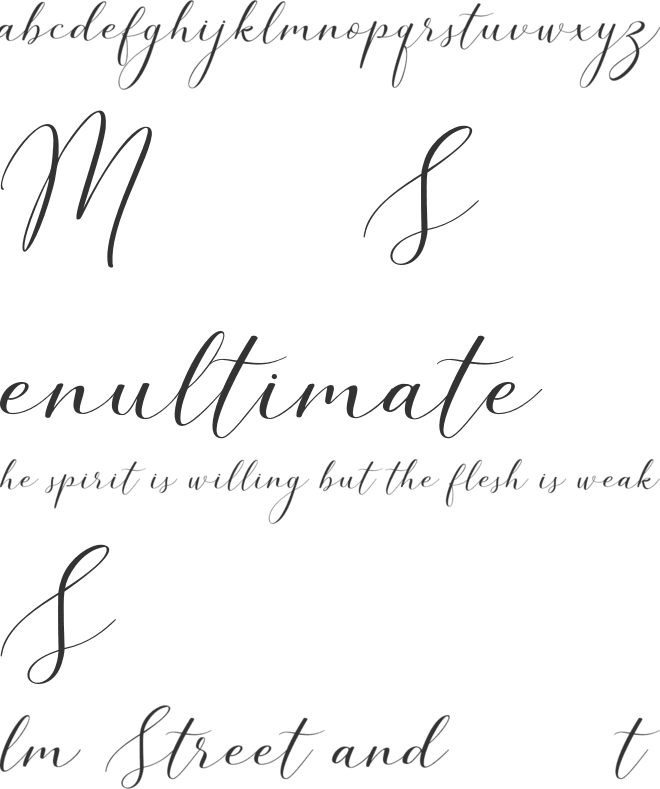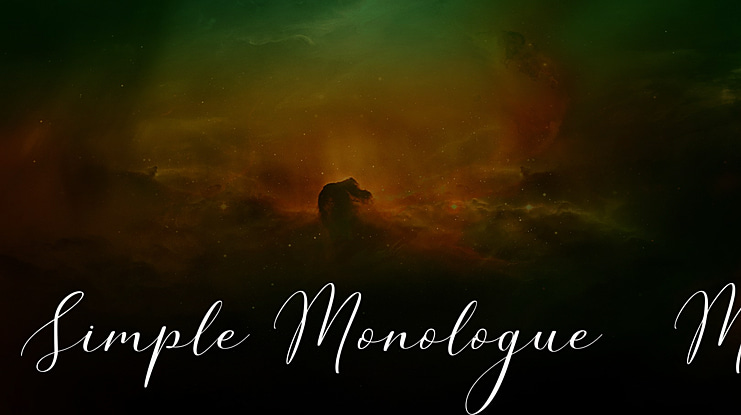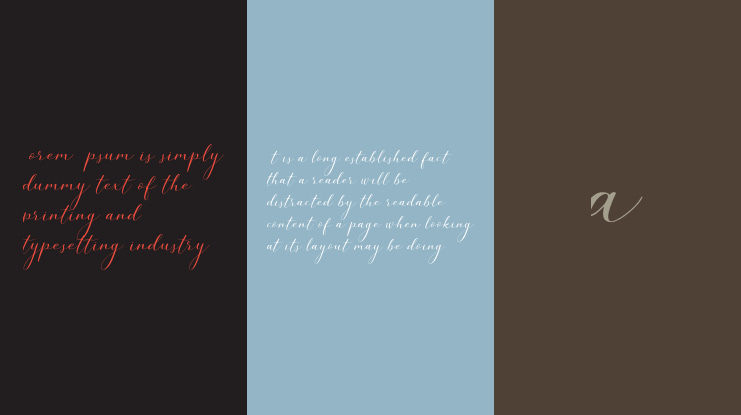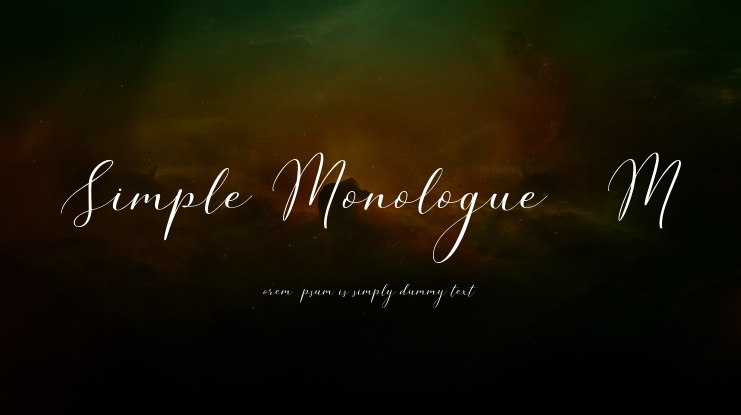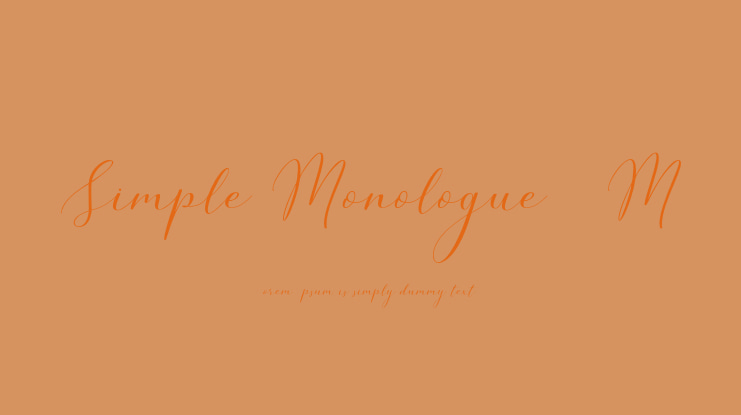
Simple Monologue DEMO Font
Or you can visit us in the other store below : https://creativemarket.com/konstantinestudio http://www.myfonts.com/foundry/KonstantineStudio/ --- Simple Monologue, a beautiful casual modern calligraphy font. Contemporary script style that hit the trends nowadays. It would be a perfect mate for branding, logo, fashion stuff, cosmetic, apparel, journal, lookbook, greeting cards, a fancy presentation, glamor appearance, magazine. So versatile, right?